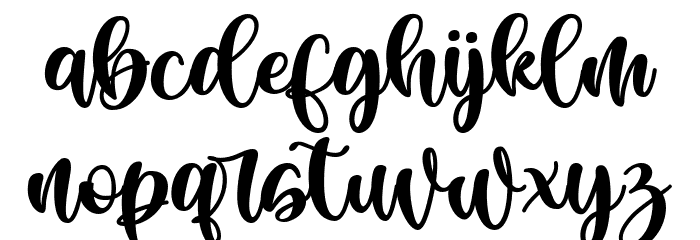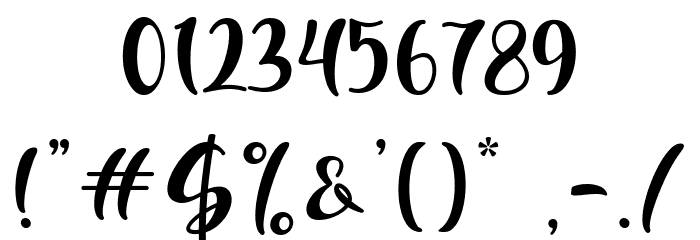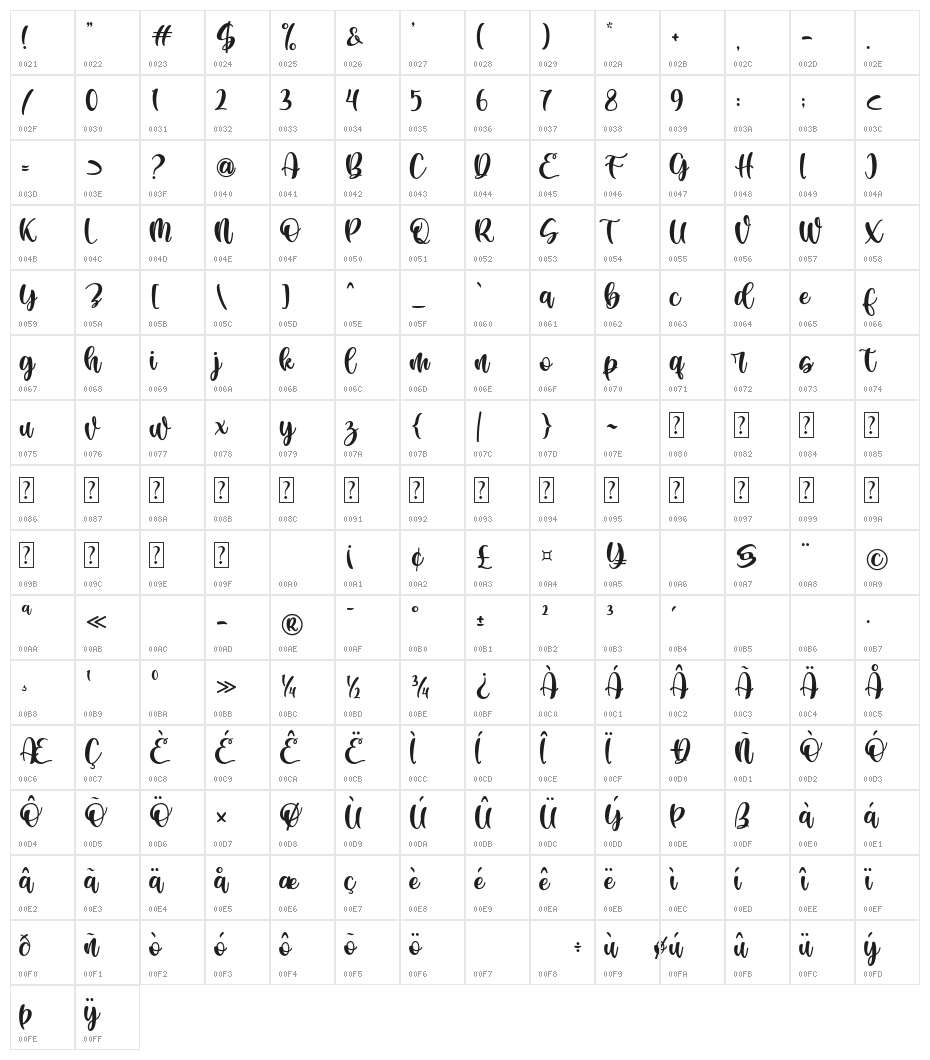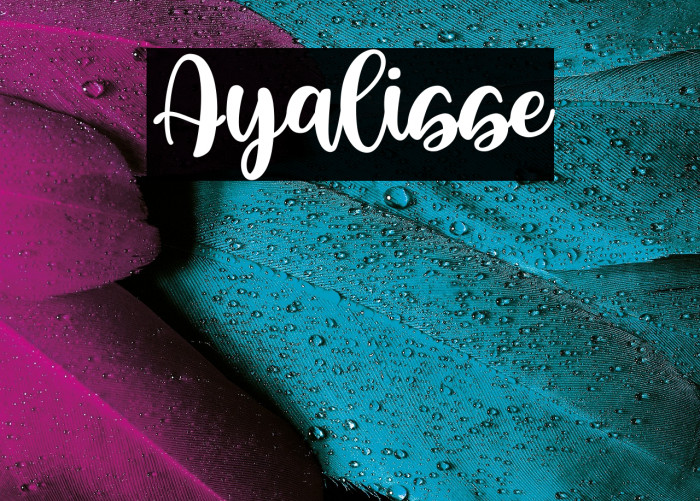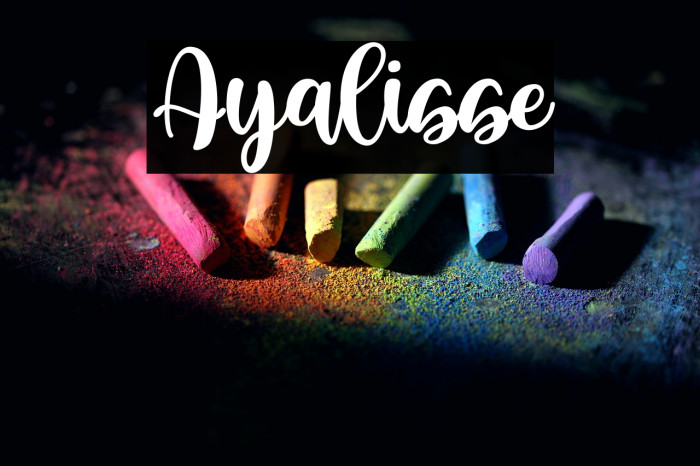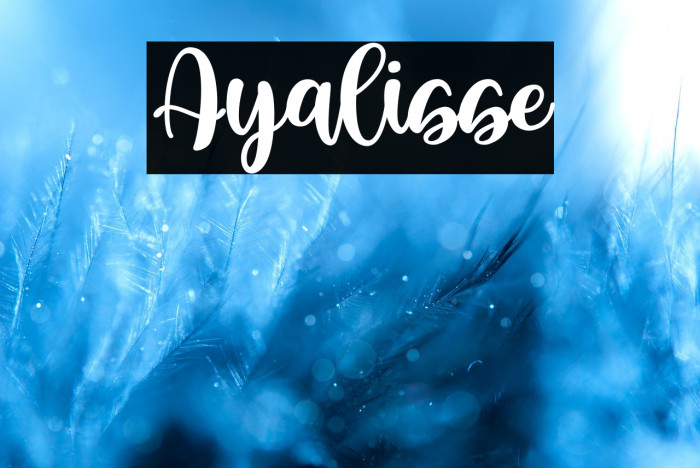
Ayalisse Font
This font features a bold and flowing script style, characterized by its elegant and artistic curves. The letters are connected in a fluid manner, giving a sense of movement and grace. The uppercase letters are slightly larger and more pronounced, while the lowercase letters maintain a consistent flow. The numbers and special characters are designed to match the overall style, with a playful yet sophisticated appearance. The font's thick strokes and smooth transitions make it highly legible while retaining a decorative flair.
A bold, flowing script font with elegant curves and artistic style.
- Proposed Projects: Ideal for wedding invitations, greeting cards, branding projects, and elegant logos.
- Use Case: Logos, Invitations, Greeting Cards